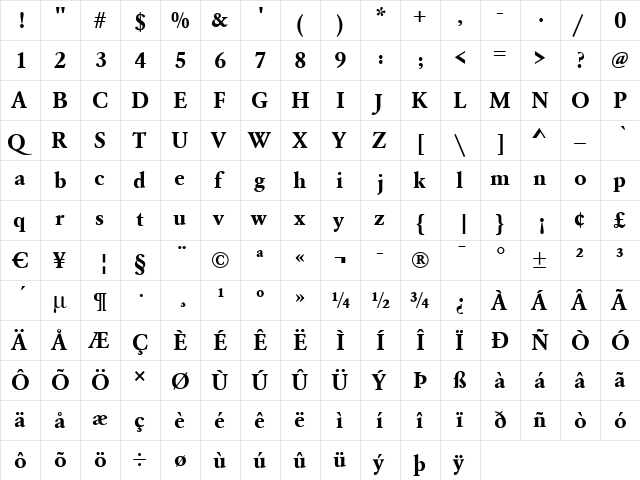
LionelBecker Bold
Design Context for LionelBecker Typeface
LionelBecker takes a measured approach to typography — its balanced proportions and neutral character make it a reliable workhorse for both digital and print work. Its bold stroke weight gives it real presence on the page.